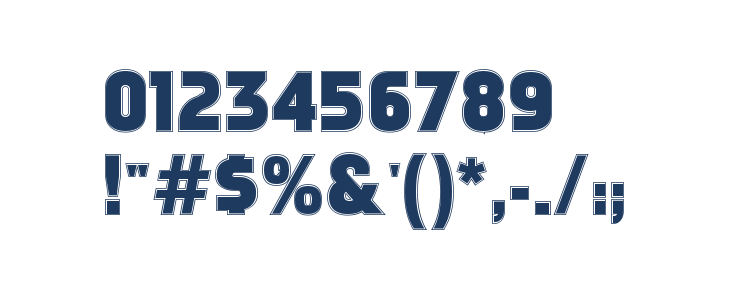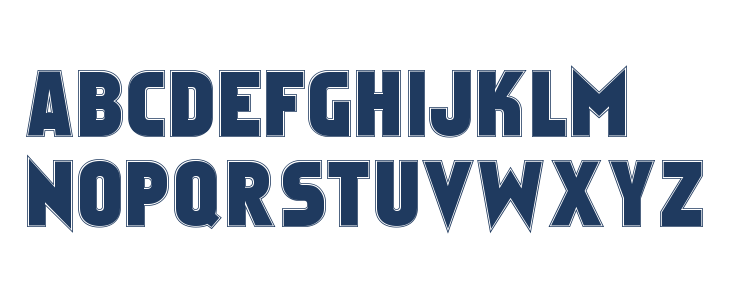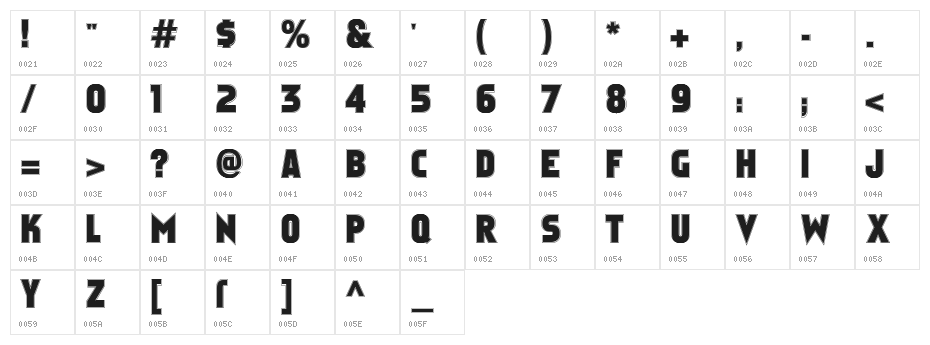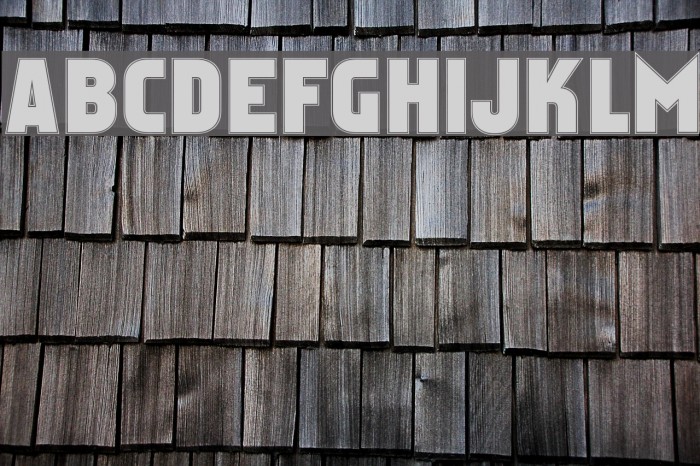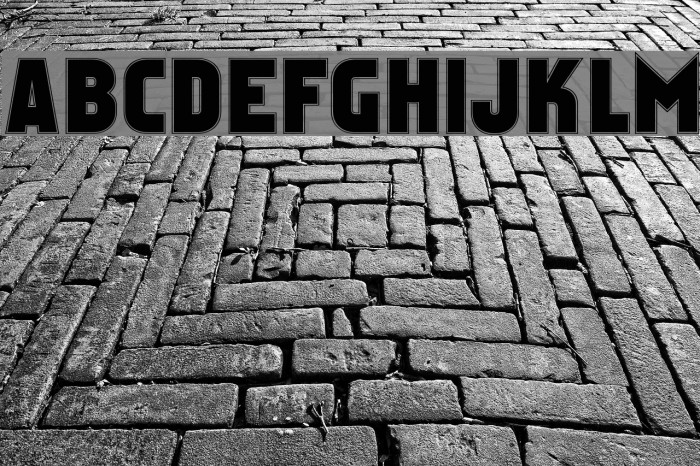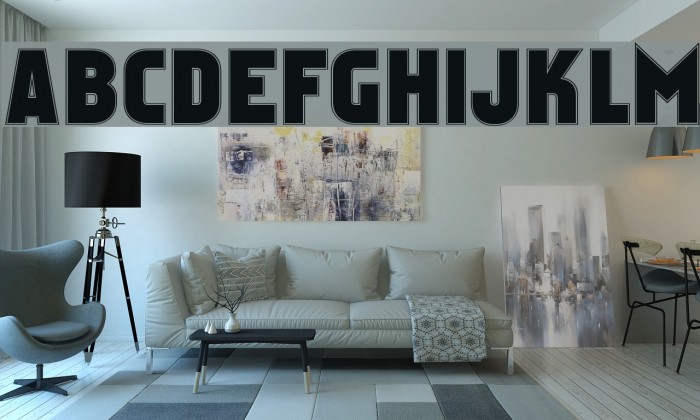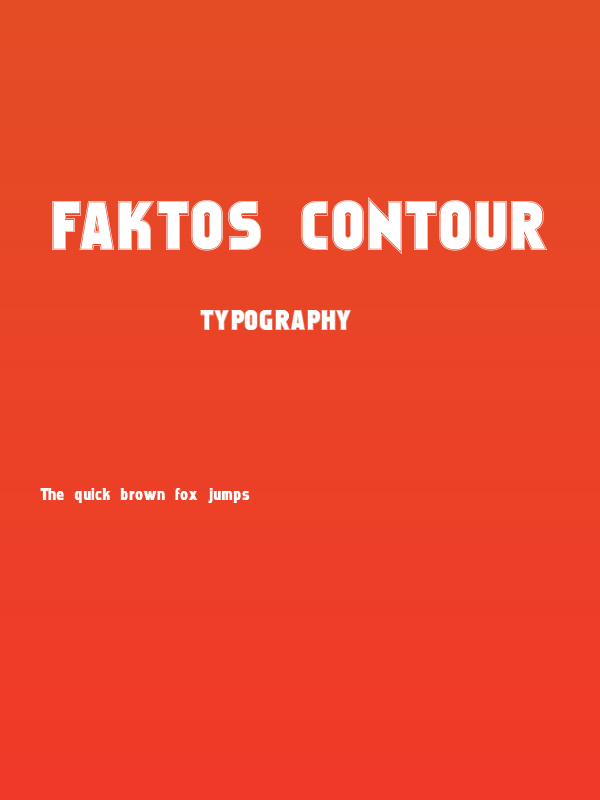
Faktos Contour Font
Faktos Contour Description
This font features a bold, geometric design with a strong presence. The characters are outlined, creating a contour effect that adds depth and dimension. The uppercase and lowercase letters maintain a consistent style, with sharp angles and clean lines. The numerals and special characters follow the same aesthetic, ensuring uniformity across all glyphs. This font is highly legible and makes a striking impact, suitable for various design applications.